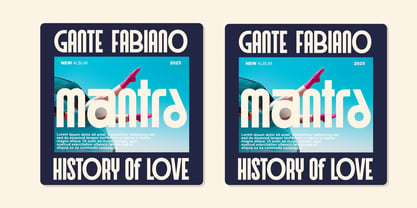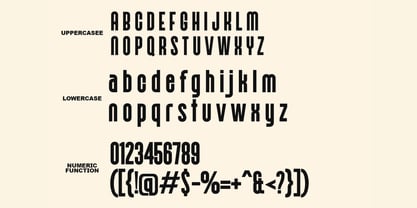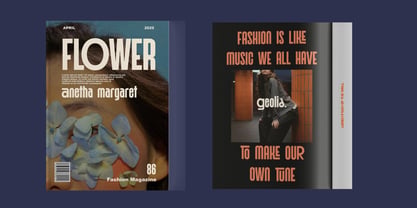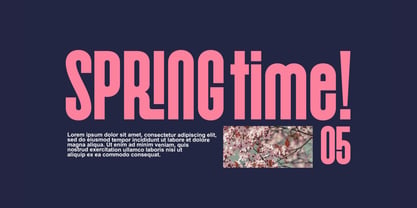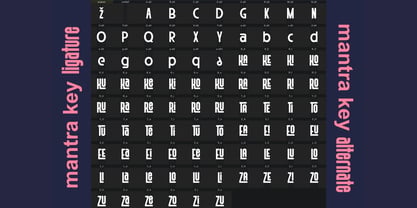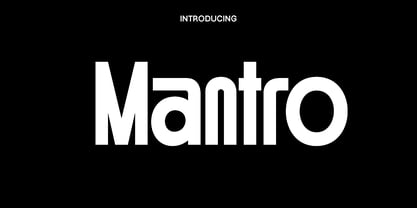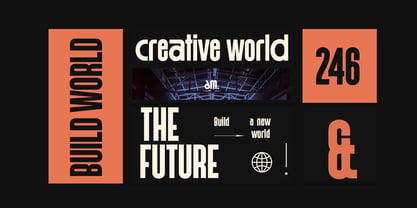
Mantro
by Only Fonts
The Mantro Font Family was designed by Olivia Love and published by Only Fonts. Mantro contains 1 styles. More about this family
Mantro is a modern, confident display serif-sans hybrid designed to bring clarity and character to brands that value polish and personality in equal measure. Its clean proportions, balanced contrast, and carefully tuned spacing make headlines feel poised and powerful, while the subtle stylistic details add warmth and memorability to logotypes and editorial mastheads. Story and style - Mantro blends contemporary geometry with refined curves, creating a silhouette that feels sharp on first read and sophisticated on closer look. - The family’s rhythm favors strong verticals and open counters for clear hierarchy across print and digital layouts. - Alternates and ligatures introduce expressive moments, letting designers dial tone from timeless to trend aware without losing cohesion. Where it shines - Branding systems that demand versatile wordmarks, sub brands, and campaign headlines that feel related yet distinct. - Editorial design for magazines and books where cover lines, section openers, and pull quotes need impact with effortless legibility. - Marketing touchpoints posters, ads, blog headers, and social graphics where tight messaging must scan quickly and look premium. Use cases - Logo and monogram construction leveraging alternates for unique letter pair solutions. - Headline and deck typography with compact line lengths and crisp spacing for strong grid discipline. - Photography led layouts where Mantro’s clean forms frame imagery and reinforce brand voice. - Quote cards, product names, and navigation labels that benefit from clarity at multiple sizes. Standout features - Full character set: uppercase, lowercase, numerals, symbols, and punctuation for complete typographic systems. - Alternates and ligatures: stylistic options to craft distinctive wordmarks and reduce collisions in tight settings. - Multilingual support: expand brand reach while preserving consistency across languages. - Functional build: tuned metrics for modern screens, ensuring crisp display in hero type and UI labels alike. Design tips - Pair Mantro with a neutral grotesque for body copy, or a humanist sans to amplify warmth in long-form reading. - Use tracking variations to shift mood: tighter for luxury cool, looser for editorial ease. - Combine standard forms for clarity in dense layouts, then sprinkle alternates in hero lines for signature flair. - Let negative space lead generous margins and measured line breaks help Mantro’s contrast breathe. Voice and vibe - Poised, modern, articulate, and brand ready. - Ideal for teams who want typography that looks tailored out of the box and scales elegantly from logo to layout.